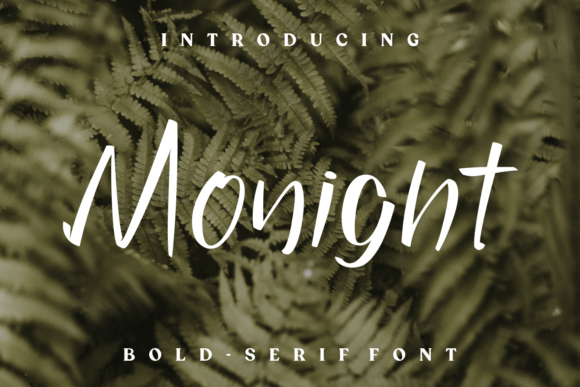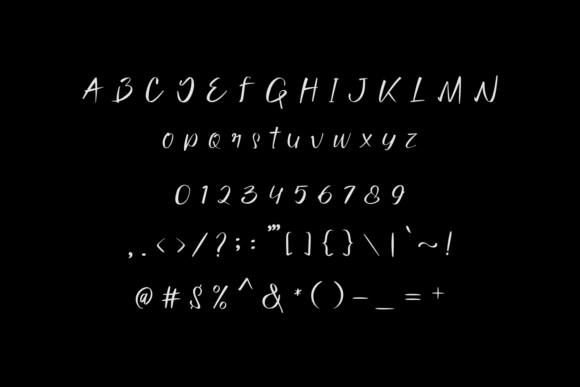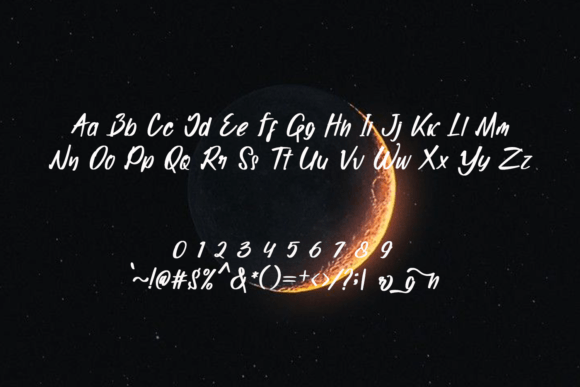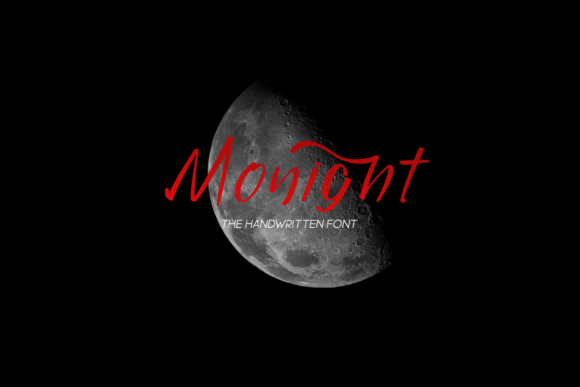
Monight Font
About Monight Font
The Monight Font Download is a cool and unique handwritten script designed to bring personality and detail to your creative work. With its neatly crafted strokes and highly detailed letterforms, Monight combines the natural flow of handwriting with professional clarity. This balance makes it an excellent choice for both casual designs and polished projects.
Its handcrafted style adds warmth and authenticity, while its precision ensures your text remains legible and stylish. Whether you’re designing logos, greeting cards, posters, or product packaging, Monight adapts beautifully to every context, enhancing your designs with originality.
Features of Monight Font
• Cool and unique handwritten style with authentic charm
• Neatly crafted letterforms designed for professional clarity
• Full character set including uppercase, lowercase, numerals, and symbols
• Highly detailed strokes for polished, consistent typography
Best Uses for Monight Font
Why Choose Monight Font
The Monight Font Download stands out because it combines authentic handwritten beauty with precision. Unlike fonts that are too rough or overly polished, Monight strikes the perfect balance—it’s creative enough to feel personal while remaining professional and readable.
Designers love Monight for its flexibility and timeless style. It’s equally effective in large-scale designs like posters or branding campaigns and smaller projects like labels and personal crafts. Its neatly crafted strokes ensure every word looks both elegant and approachable.
The Monight Font Download is a cool, unique handwritten script that adds creativity, charm, and detail to your projects. With its carefully crafted strokes, complete character set, and versatile applications, it’s perfect for logos, invitations, packaging, posters, and more.